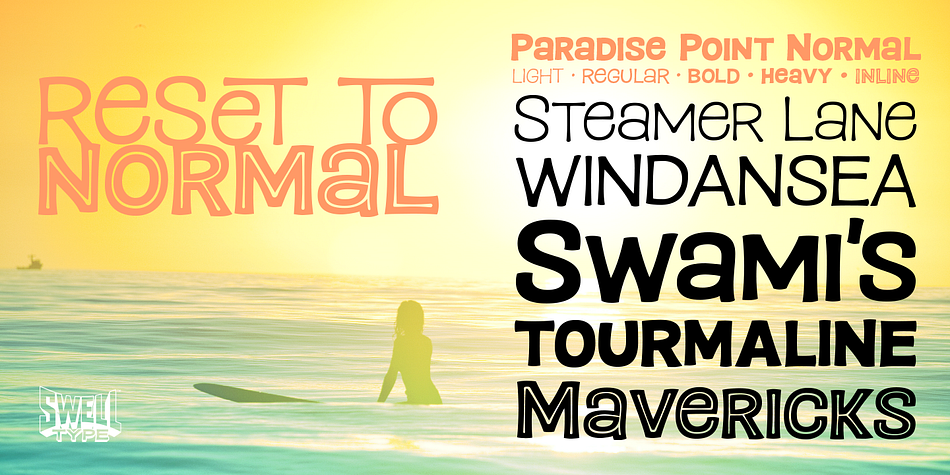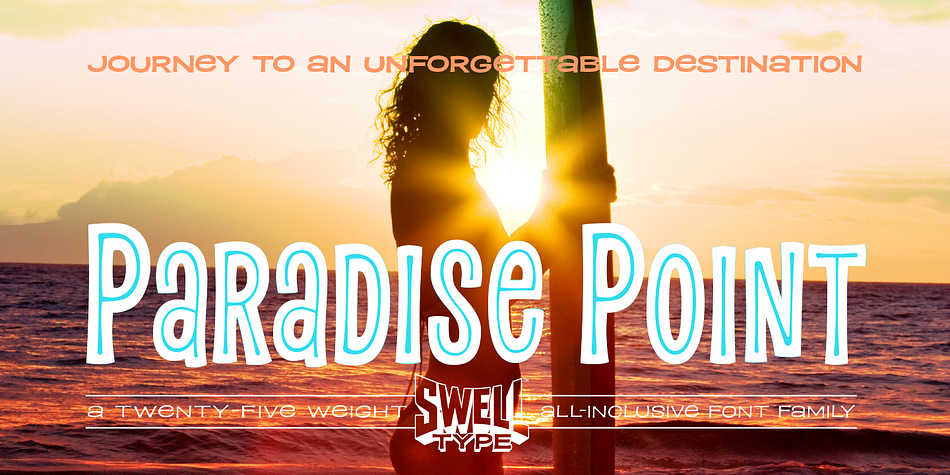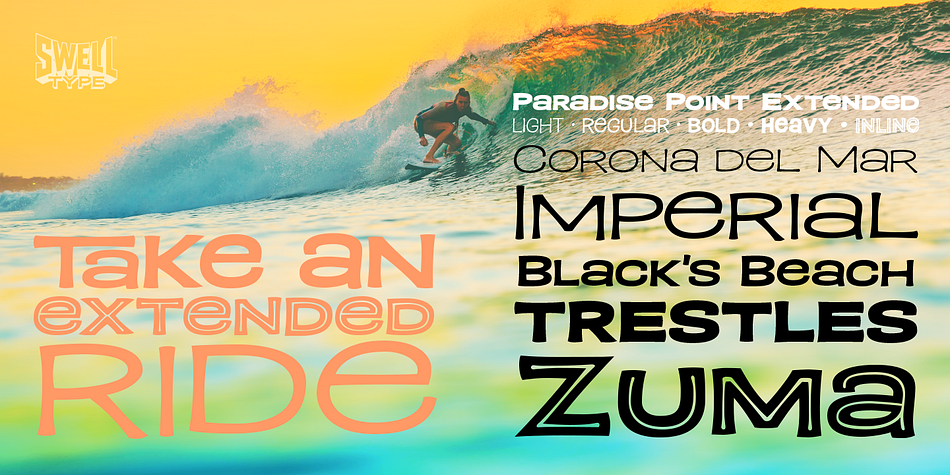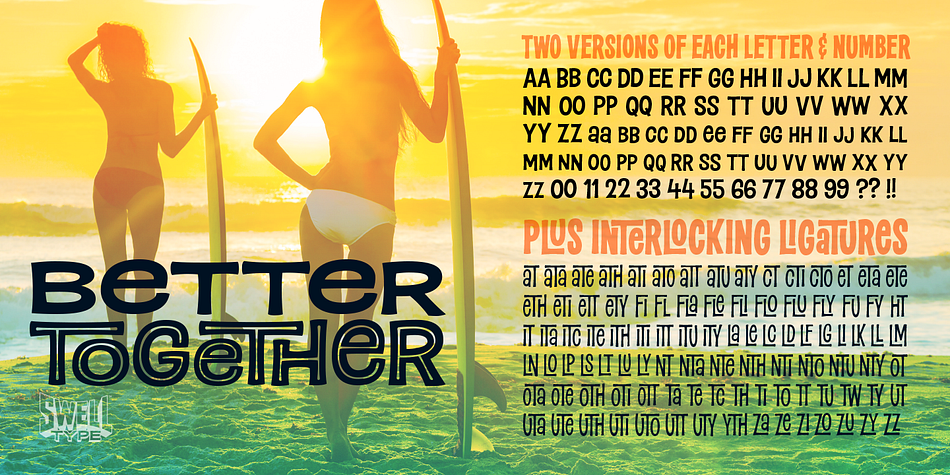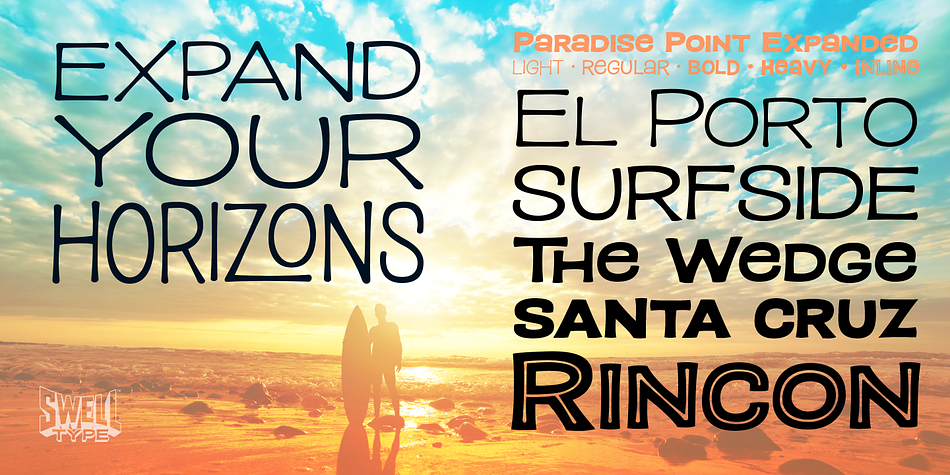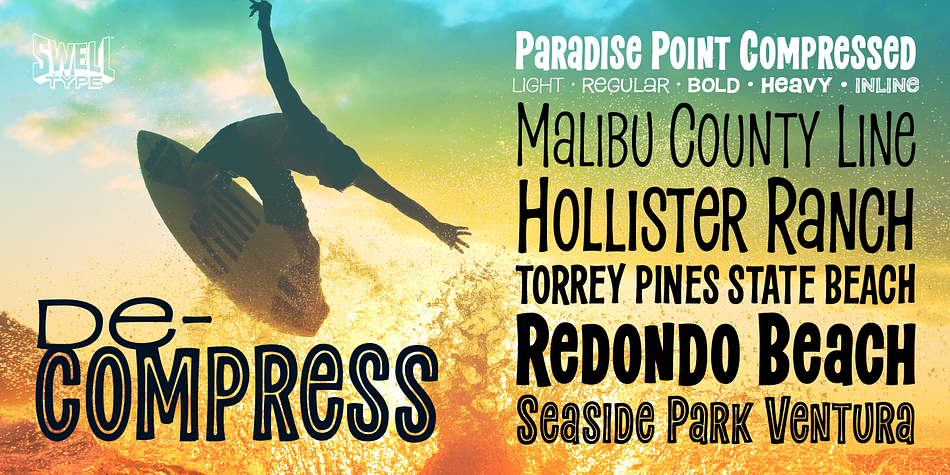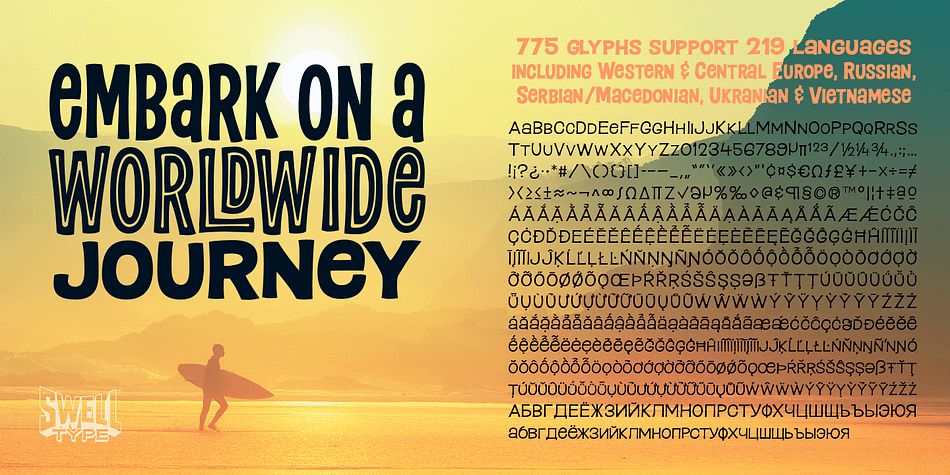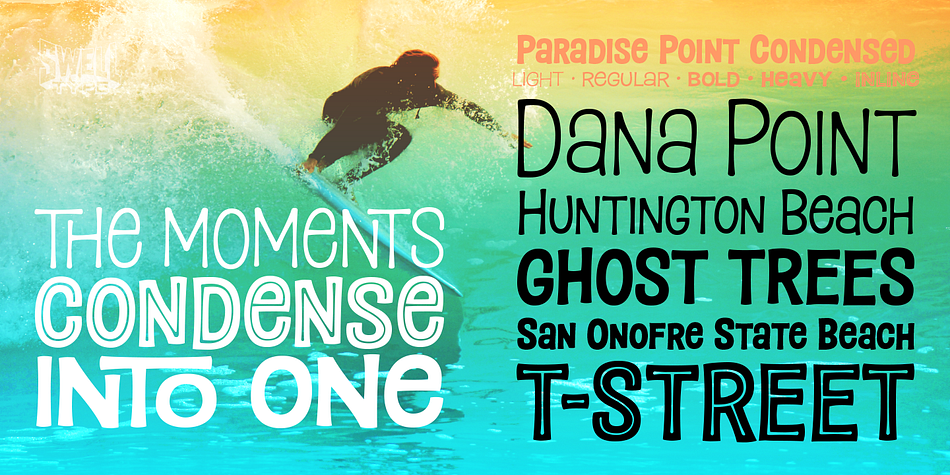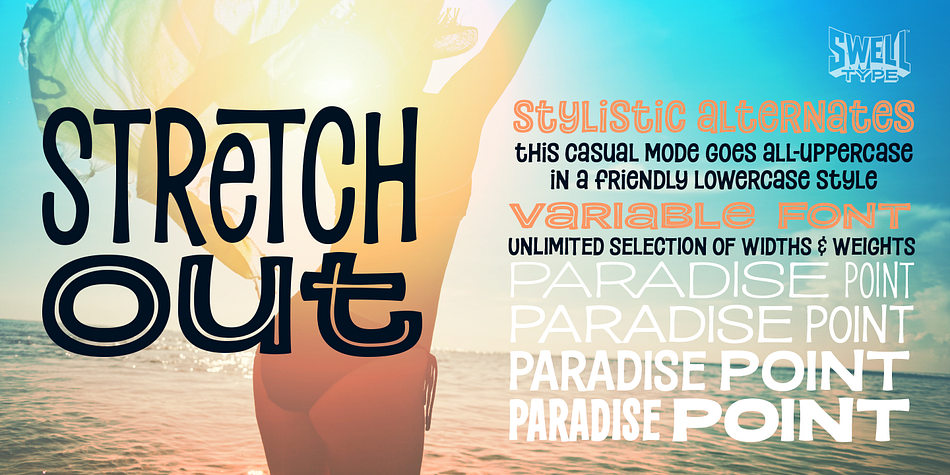
Designed by John Roshell, Paradise Point is a display sans and hand display font family. This typeface has twenty-seven styles and was published by Swell Type.
Surf’s up! Take an unforgettable adventure to the sparkling shores of Paradise Point.
Ride our 25 majestic weights, from tranquil tall & thin to thunderous wide & heavy. Expand your horizons with the versatile Variable font to select any spot between.
One-of-a-kind activities: Drop in a thrilling Inline weight for stylistic flair. Overlay with the matching Heavy for striking color effects.
Discover hidden wonders! Stylistic Alternates will take you to the scenic heights of uppercase in a friendly lowercase style. Or immerse your text in interlocking Discretionary Ligatures for an authentic Tiki Type island experience.
Enchanting views: Two versions of each letter and number automatically rotate for a natural, hand-drawn appearance. The Light weights have round ends to simulate a single pen stroke, which matches the center of the Inline weights for a perfect pairing.
Explore! If you venture into unknown territory, each weight of Paradise Point contains 775 glyphs for stress-free support of over 200 languages.
An all-inclusive getaway: Each weight of Paradise Point includes the features above, and can set readable body text as well as create striking logos and headlines. Use it for restaurant menus, surf and skate brands, or any design project where you want to convey lively, friendly, stress-free fun.